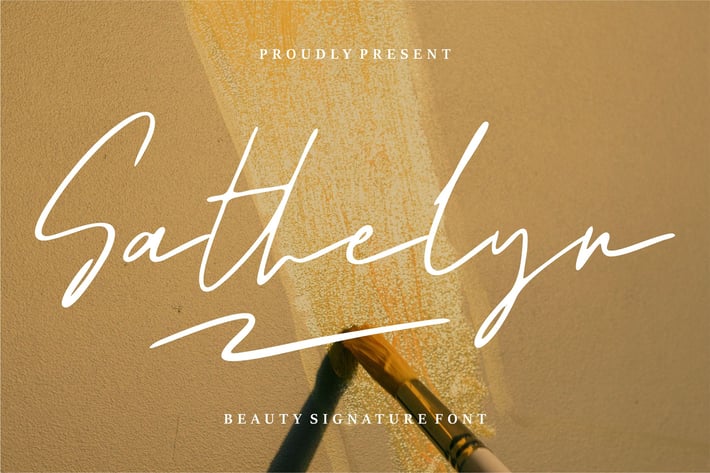
Sathelyn | Beauty Signature Font
Sathelyn | Beauty Signature Font with a calligraphy style, So beautiful on invitation like greeting cards, branding materials, business cards, quotes, posters, and more!